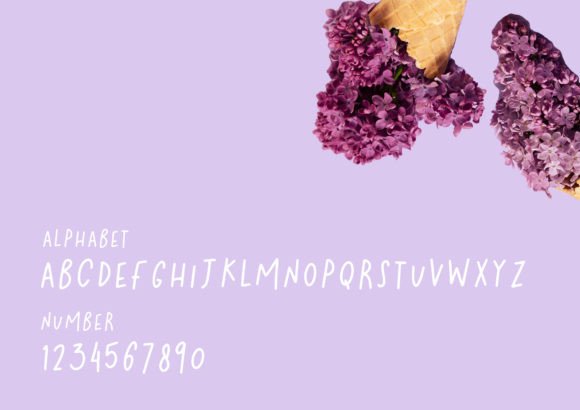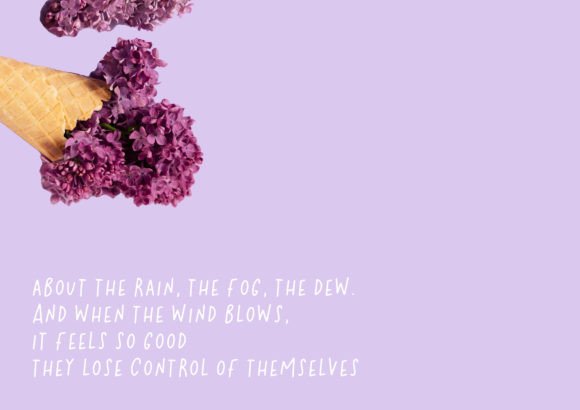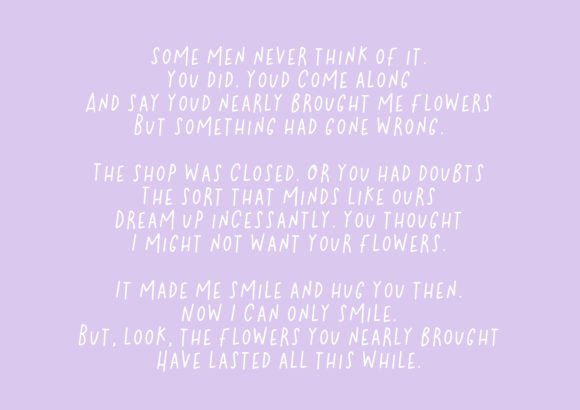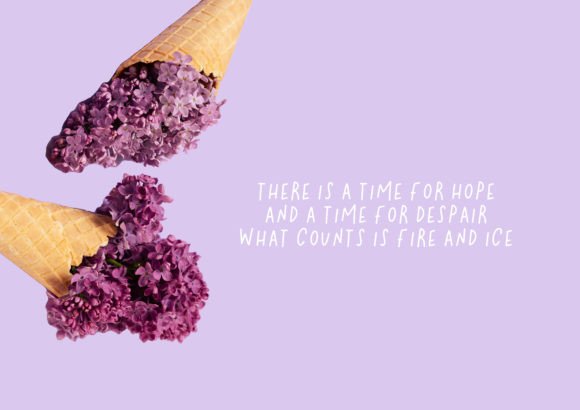
Goodbye Midnight Font
A Playful and Casual Handwritten Font
Goodbye Midnight Font is a playful and casual handwritten typeface designed to bring a fun and whimsical touch to any design project. Its natural and loose strokes create a lighthearted and approachable feel, making it perfect for a variety of creative applications. Whether you’re designing logos, greeting cards, or social media content, this font will add a personalized and charming vibe to your work, ensuring it stands out in a fun and unique way.
Perfect for Logos and Branding
For logos and branding, the Goodbye Midnight Font is an excellent choice. Its playful handwritten style offers a friendly and memorable element that helps your brand identity stand out. Whether you’re designing for a local business, creative agency, or personal brand, this font brings an approachable feel to your logo while still conveying professionalism. Its versatility ensures it works well across different industries, from creative services to e-commerce brands, adding a personal touch to your business identity.
Ideal for Greeting Cards and Invitations
For greeting cards and invitations, the Goodbye Midnight Font adds a fun and distinctive style to your designs. Whether you’re creating birthday cards, holiday greetings, or wedding invitations, this font’s whimsical nature ensures that your cards and invitations will leave a lasting impression. Its playful design is perfect for both casual events and celebratory occasions, offering a unique charm that’s both personal and welcoming.
Great for Quotes and Typography Designs
The Goodbye Midnight Font is perfect for creating quotes and typography-based designs. Whether you’re designing motivational posters, wall art, or quote graphics, this font brings a charming and creative flair to your work. Its loose, handwritten strokes create an authentic and expressive design, making your quotes feel more personalized and meaningful. Perfect for social media posts, art prints, or greeting cards, this font will make your words pop with its whimsical and playful aesthetic.
Ideal for Social Media and Digital Content
For social media posts and digital content, the Goodbye Midnight Font brings a fun and casual vibe to your designs. Whether you’re creating Instagram stories, Facebook ads, or Pinterest graphics, this font adds a creative and playful touch to your content. Its bold, easy-to-read design makes it perfect for eye-catching social media graphics, ensuring your posts stand out in a crowded digital space. Whether you’re promoting products, events, or sharing quotes, this font brings an engaging, personalized flair to your online presence.
Versatile and Legible
Despite its playful design, the Goodbye Midnight Font remains legible and easy to use. Its consistent strokes and clear letterforms ensure that your text is easy to read, even for longer passages or small sizes. Whether you’re using it for headlines, captions, or body text, this font strikes the perfect balance between fun and readability, making it suitable for a wide variety of design applications, from print to digital media.
Add Fun and Whimsy to Your Designs with Goodbye Midnight Font
If you’re looking for a playful, casual handwritten font that adds a charming, personalized touch to your designs, the Goodbye Midnight Font is the perfect choice. Whether you’re designing logos, greeting cards, quotes, or social media content, this font will give your work a fun and distinctive appeal. Let the Goodbye Midnight Font help you create memorable, whimsical designs that stand out and leave a lasting impression.